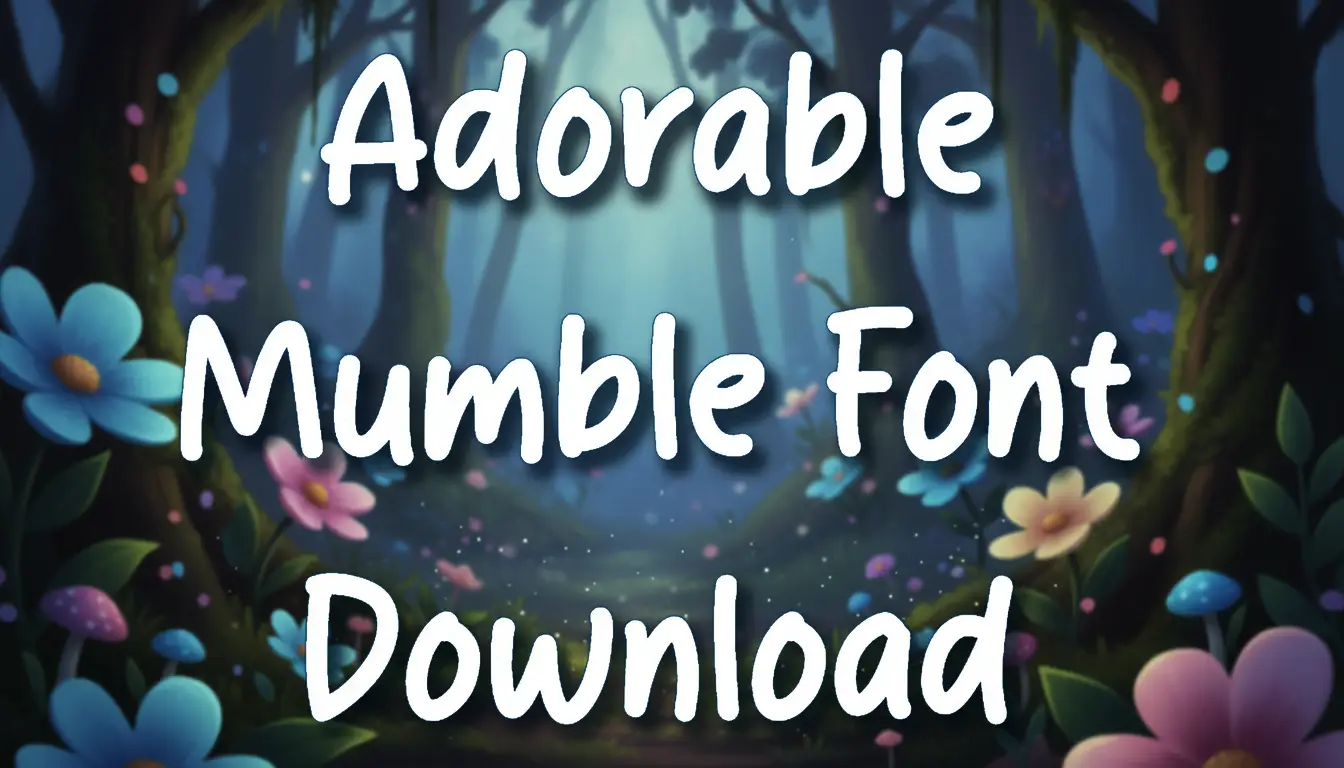
Adorable Mumble Font
Adorable Mumble
Adorable Mumble is a script font made by MJType (Muhamad Junaid). The letters have the smooth movement of real pen lettering, which is why even a single name looks special in it. You can download it for free and test it with your own words in the preview above.
What You Can Type With Adorable Mumble
You get every letter from A to Z in both cases and all the numbers from 0 to 9, which means Adorable Mumble can handle full sentences, dates and prices. Common punctuation such as &, !, ? and @ is included as well. It also has the accented letters you need for Spanish, French, German, Portuguese and Italian.
Where Adorable Mumble Works Best
Think of Adorable Mumble for wedding invitations, logos and signature-style headings. Script fonts read best in short bursts, so keep it to names, titles and one-line quotes. Skip all caps: script capitals are drawn to start a word, not to fill one.
Does Adorable Mumble support accented letters?
Yes. Adorable Mumble includes the accented letters needed for Spanish, French, German, Portuguese and Italian, so it works for more than just English.